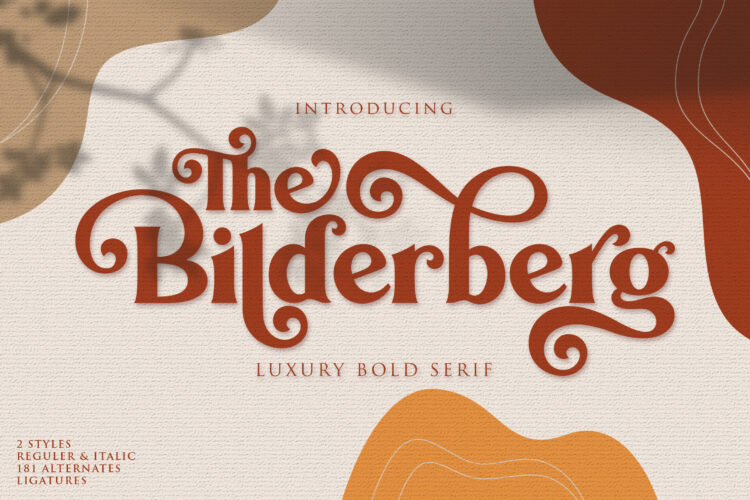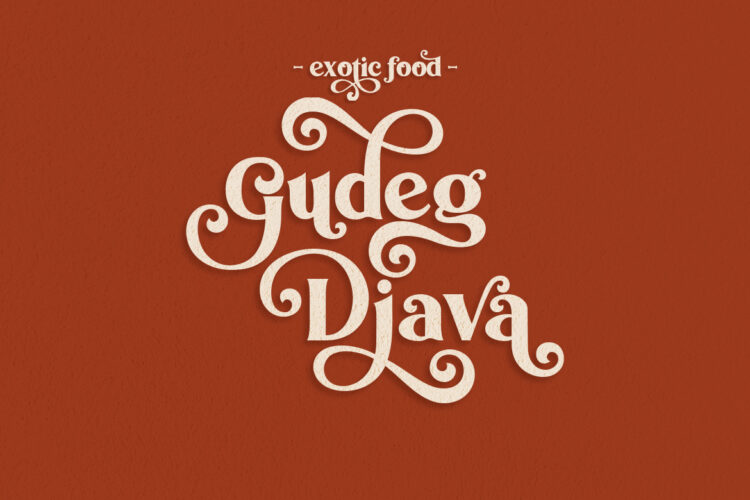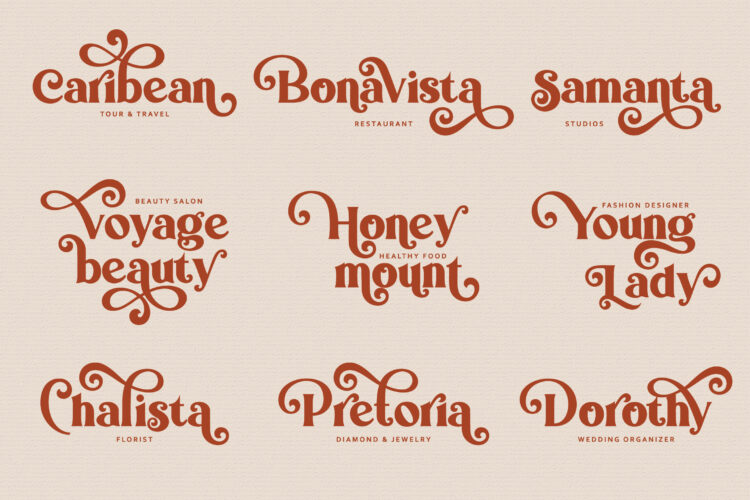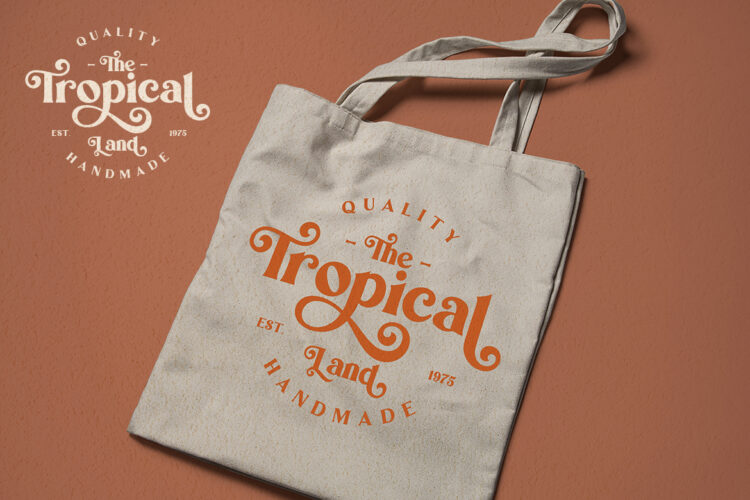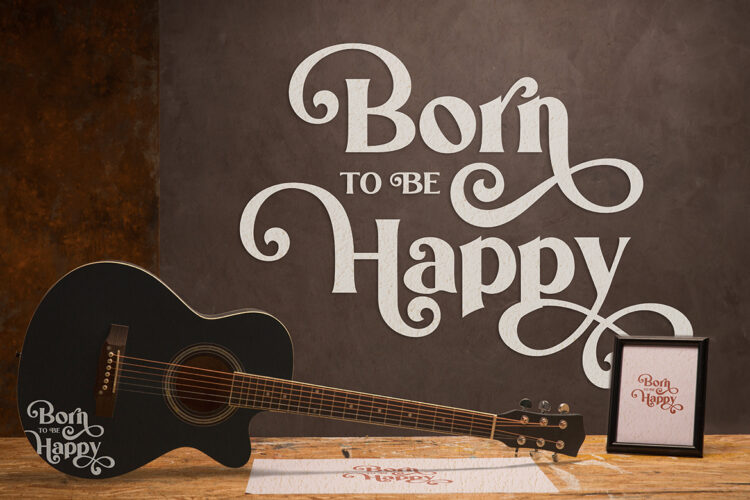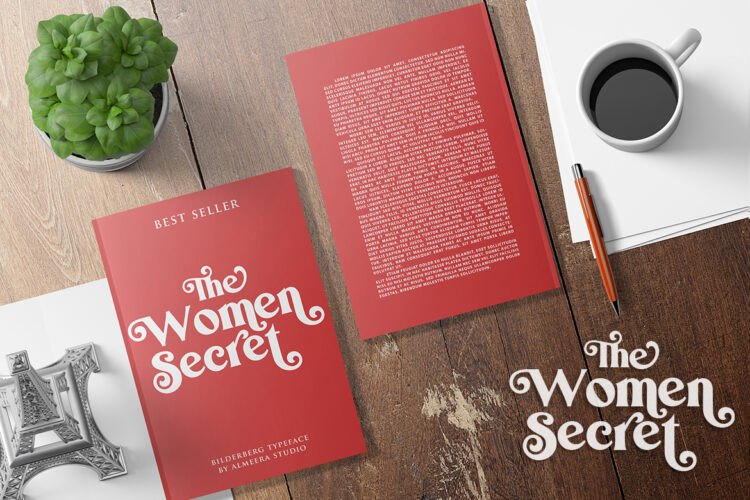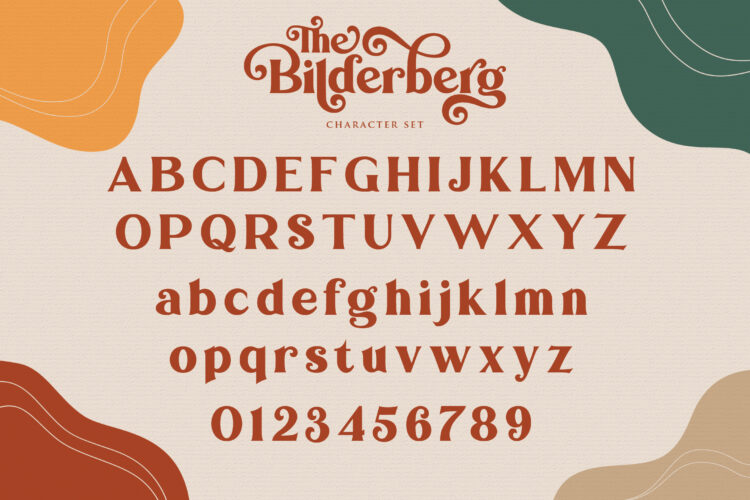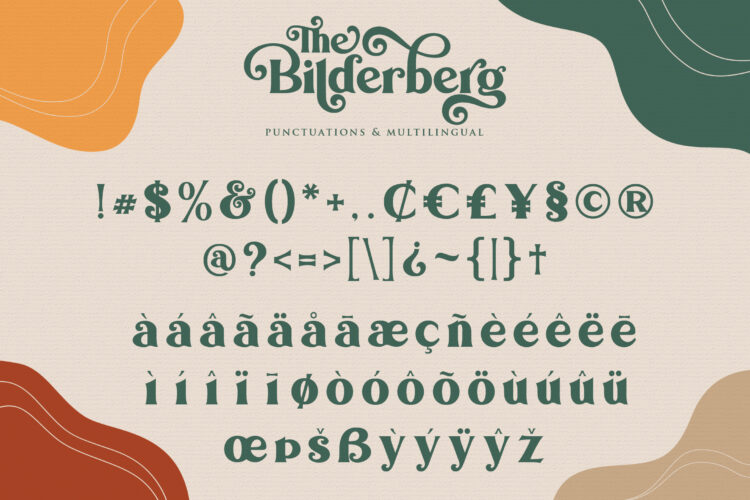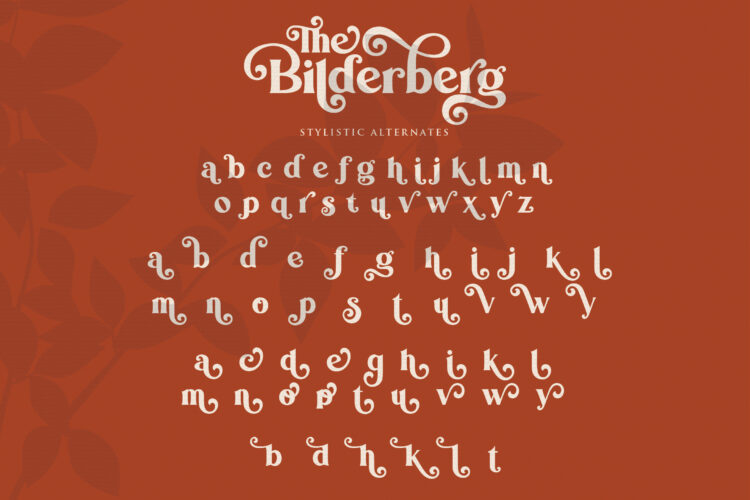
Introducing our newest typeface called The Bilderberg – Luxury Bold Serif Typeface. Comes in 2 styles regular & italic, this typeface has many alternates with swashes that can make your lettering / logotype become more interesting. The clean and neat of a serif combined with the swirl swashes makes this font very attractive.
This font perfectly made to be applied especially in logo, and the other various formal forms such as invitations, labels, logos, magazine headers, books, greeting / wedding cards, Clothing Branding, product packaging, fashion, make up, quotes, stationery, novels, cutting, labels or any type of advertising purpose.
Features :
– 2 styles ( regular & italic )
– uppercase & lowercase
– numbers and punctuation
– multilingual
– ligatures
– stylistic alternates
– swashes
Bilderberg | Luxury Bold Serif